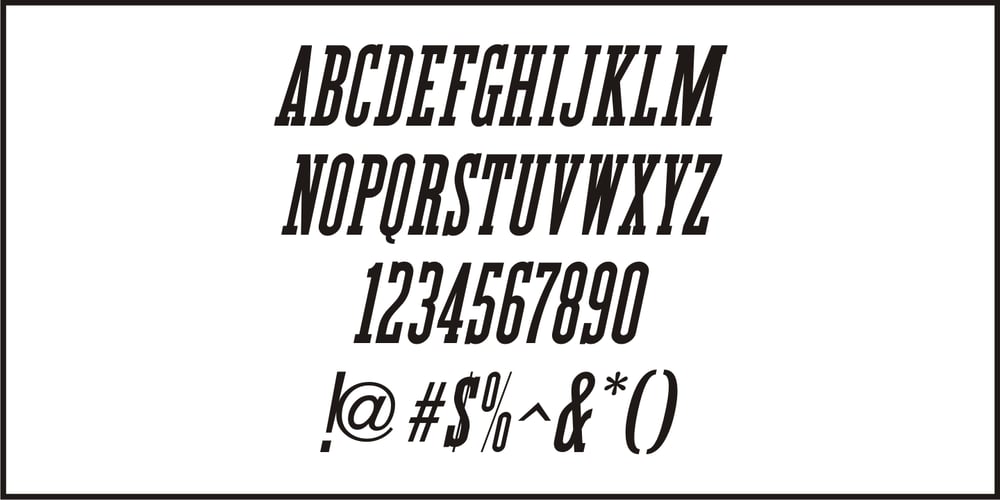
Tabloid News
Tabloid News font
Tabloid News Font Family was designed by Jeff Levine and published by Jeff Levine. Tabloid News contains 2 styles and family package options. Sans serif characters re-drawn from old newspaper headlines (and used in the design for Late Breaking News JNL) were given a slab serif treatment in order to create a condensed type face with both grotesk and block influences. The end result is Tabloid News JNL, which is available in both regular and oblique versions.